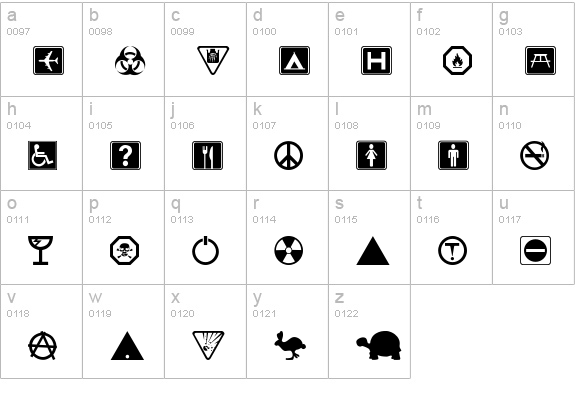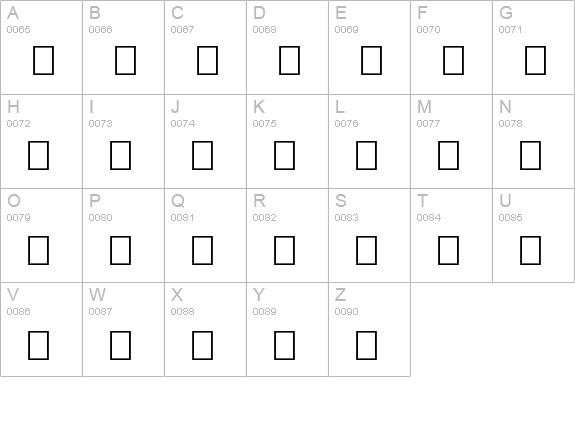
Symbolix - DGL Font Details
Symbolix - DGL font is a stunning and versatile typeface that is perfect for adding a touch of elegance and sophistication to your design projects. This font features a unique blend of modern and classic elements, making it suitable for a wide range of applications, from branding to editorial design. With its clean lines and sharp angles, Symbolix - DGL font exudes a sense of professionalism and style. Whether you are creating a logo, poster, website, or any other design project, this font will surely make a statement and leave a lasting impression on your audience. The best part is that Symbolix - DGL font is available for free download at FontsMarket.com. So go ahead and elevate your designs with this beautiful and impactful typeface today!